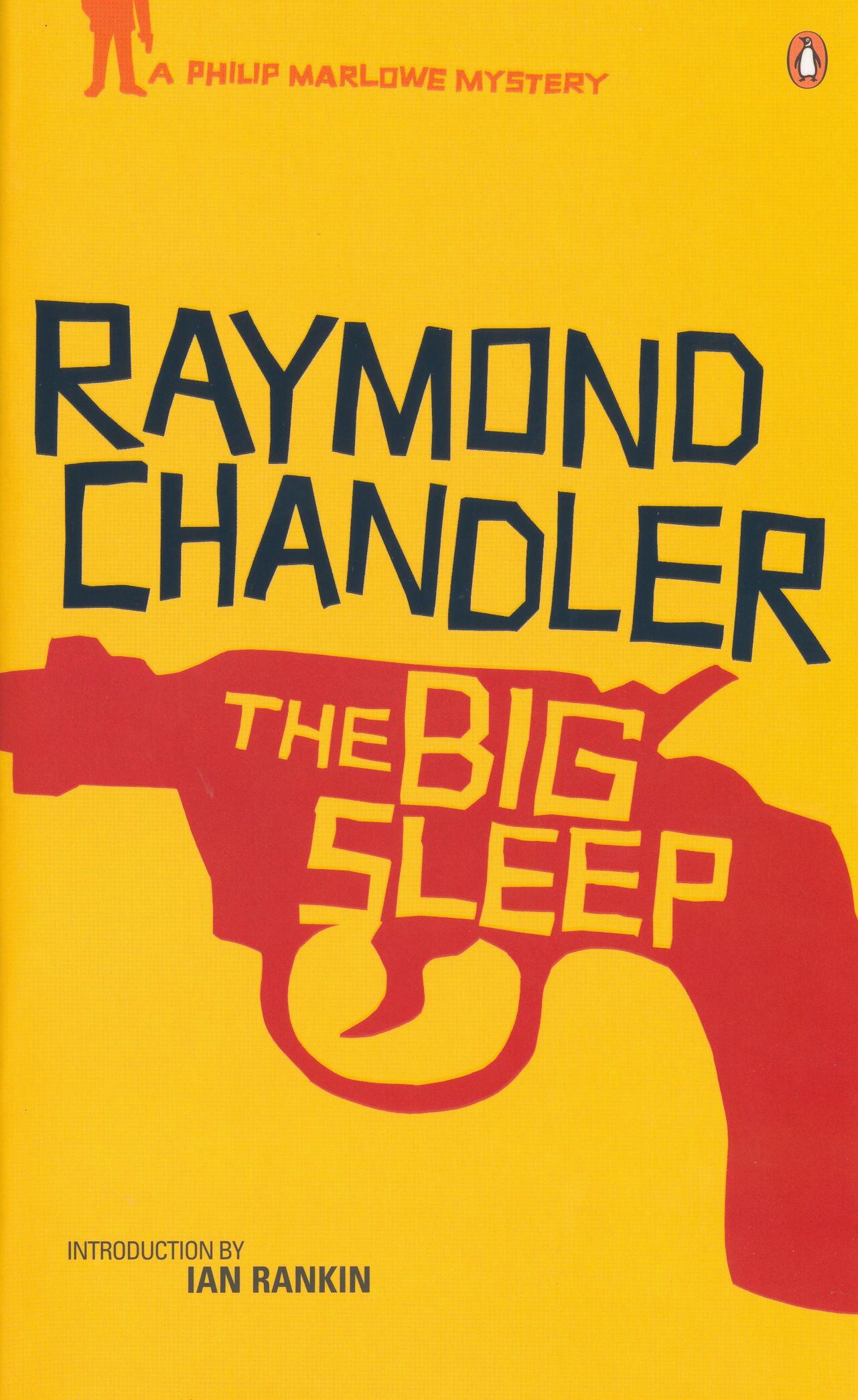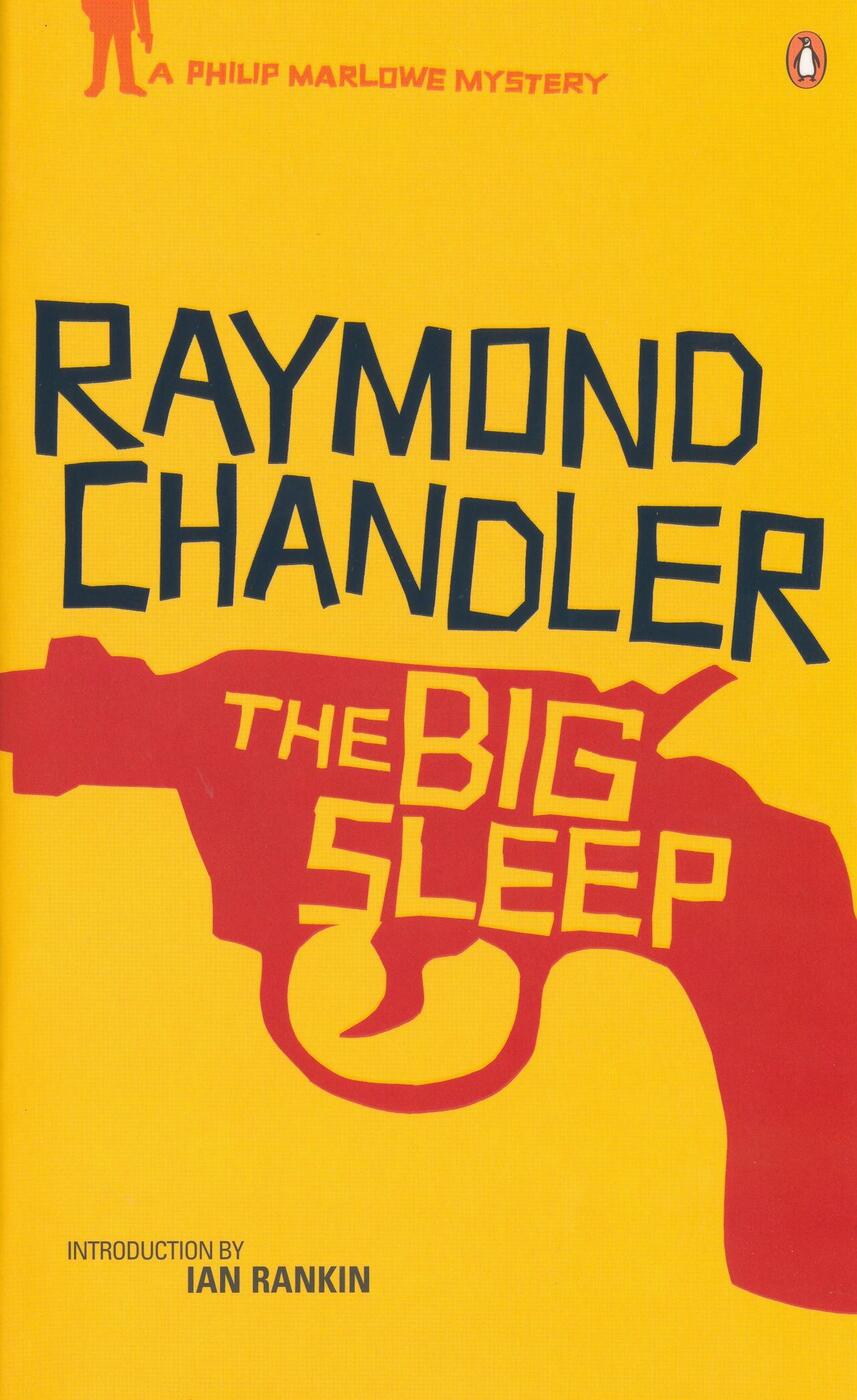
The Big Sleep font identification
I can't identify the font used the the Penguin editions of Raymond Chandler's novels. I found some that are close, but not exact. I found these covers here https://hardboiledjackets.wordpress.com/portfolio/85/
Ralf -- Thanks. I downloaded the vertigOdd font. Pretty close to the hand-lettered font.